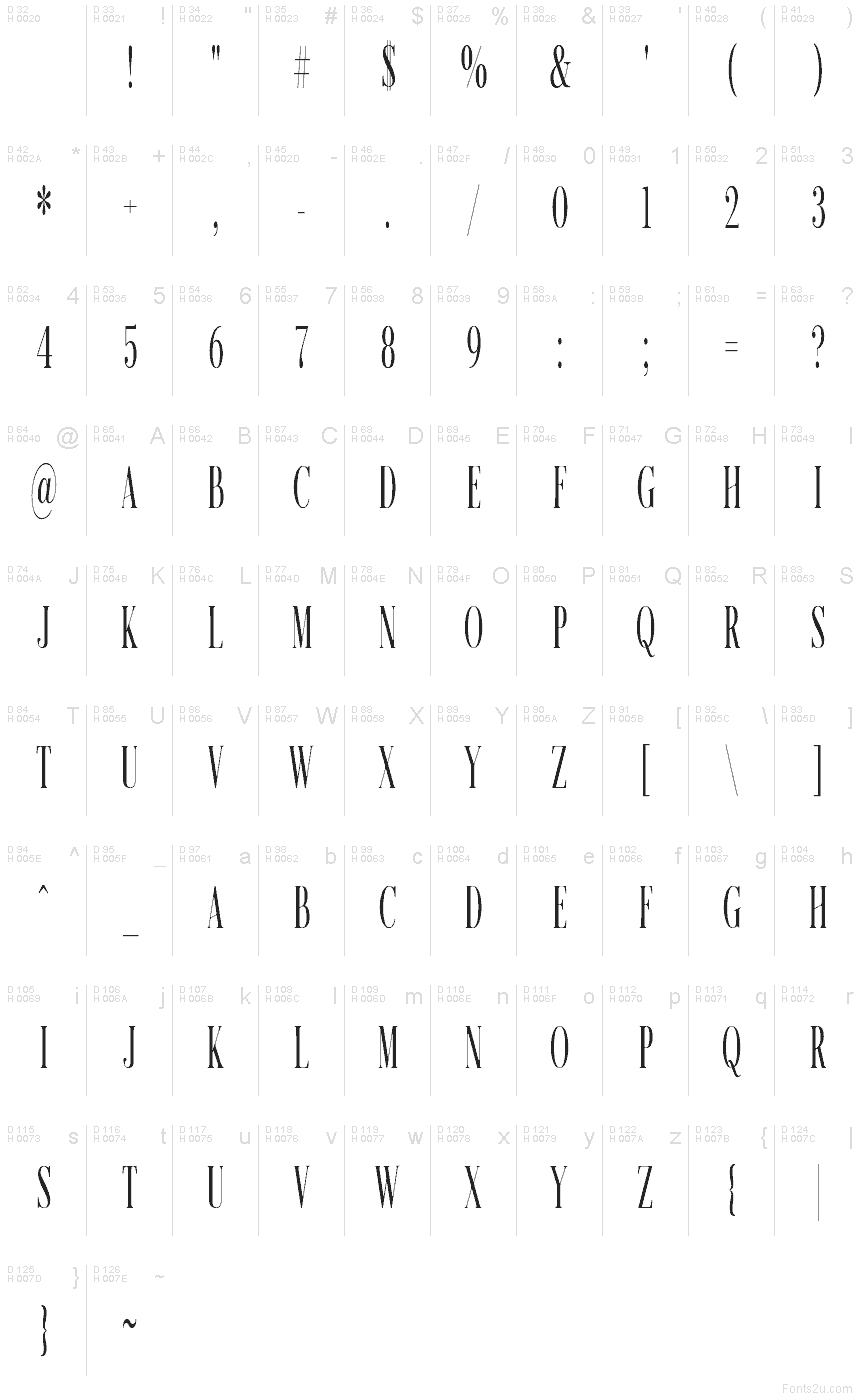
Hainnan font by Graphicxell is a free serif typeface with a strikingly narrow stance and sculpted stencil cuts that slice through each letter like light through shutters. The tall rhythm and knife-edged serifs create a cool, editorial tension-sleek, upright, and unmistakably luxe. Those crisp incisions keep dense headlines airy, so you can go big without the blocky feel.
Using Hainnan, headlines snap to attention on fashion lookbooks, magazine covers, perfume packaging, event posters, menu mastheads, and boutique logos. The tight vertical cadence guides the eye and builds a chic, cohesive brand voice in seconds. For an easy pairing, set short subheads or body copy in a neutral grotesk or geometric sans; keep generous letterspacing to let this free font breathe.